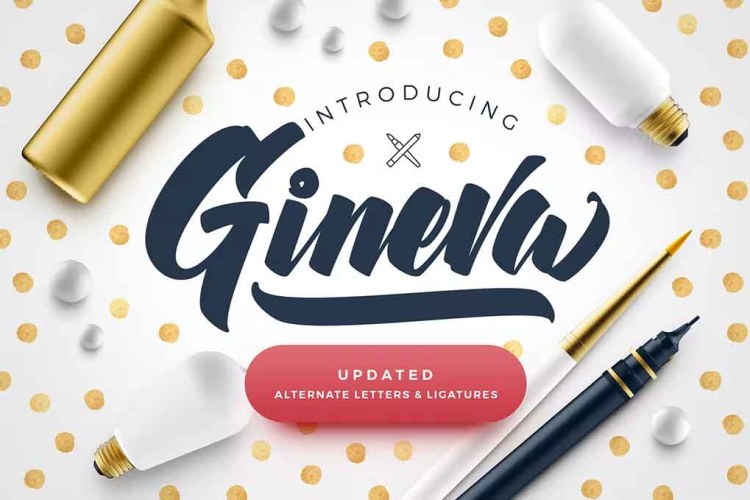
Gineva Script Font
Geneva is a handlettering typeface with a brush style, it’s perfect for latterhead, apparel design, headline, logotype, poster, card, and etc. For folks who have opentype capable software : The alternates are accessible by turning on ‘Stylistic Alternates’ and ‘Ligatures’ buttons on in Photoshop’s Character panel, or via any software with a glyphs panel, e.g. Adobe Illustrator, Photoshop, Inkscape.
Where Gineva Script Font works best
A short phrase in Gineva Script Font carries warmth that a typeset sans cannot fake; keep the rest of the card plain.
Chalkboard-style headings in Gineva Script Font make a menu feel hand-made. Keep the dish descriptions in a simple face so prices stay readable.
One line of Gineva Script Font over a photo is enough; the script carries the tone and the caption does the work.
What kind of work does Gineva Script Font suit?